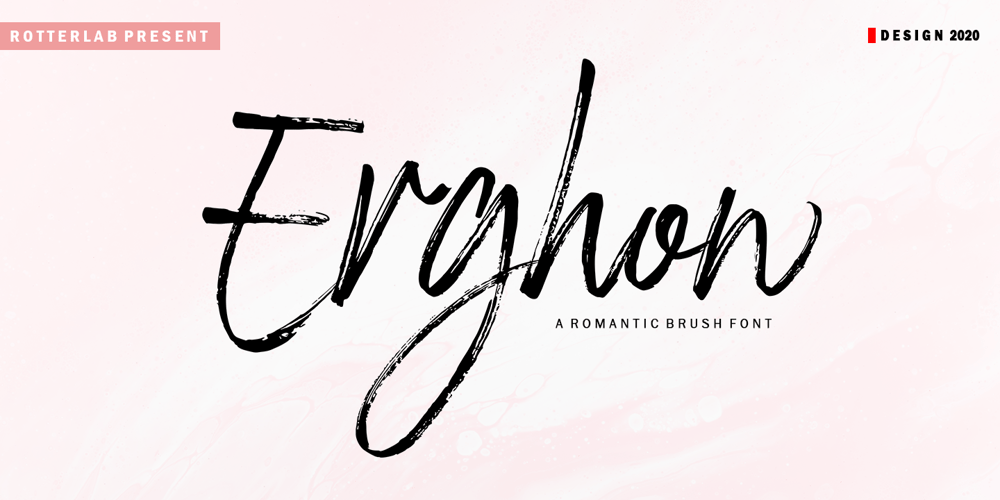
Erghon Font Family was designed by Sidiq Fahmi and published by Rotterlab Studio. Erghon contains 2 styles and family package options. Erghon is a handwritten font with quick dry strokes and a signature style. It’s perfect for branding projects, homeware designs, product packaging or simply as a stylish text overlay to any background image or posters. Erghon has an entire alternate glyph set. This is accessible simply by their own separate font file – just install this as normal and select ‘Erghon Swash’ , ‘Erghon’ or ‘Erghon’ in your text-tool. Erghon includes 2 Font files: 1. Erghon Regular – A handwritten script font containing upper & lowercase characters, numerals and a large range of punctuation. 2. Erghon Swash – A set of 26 hand-drawn swashes, with cool touch to underline your text set in Erghon.